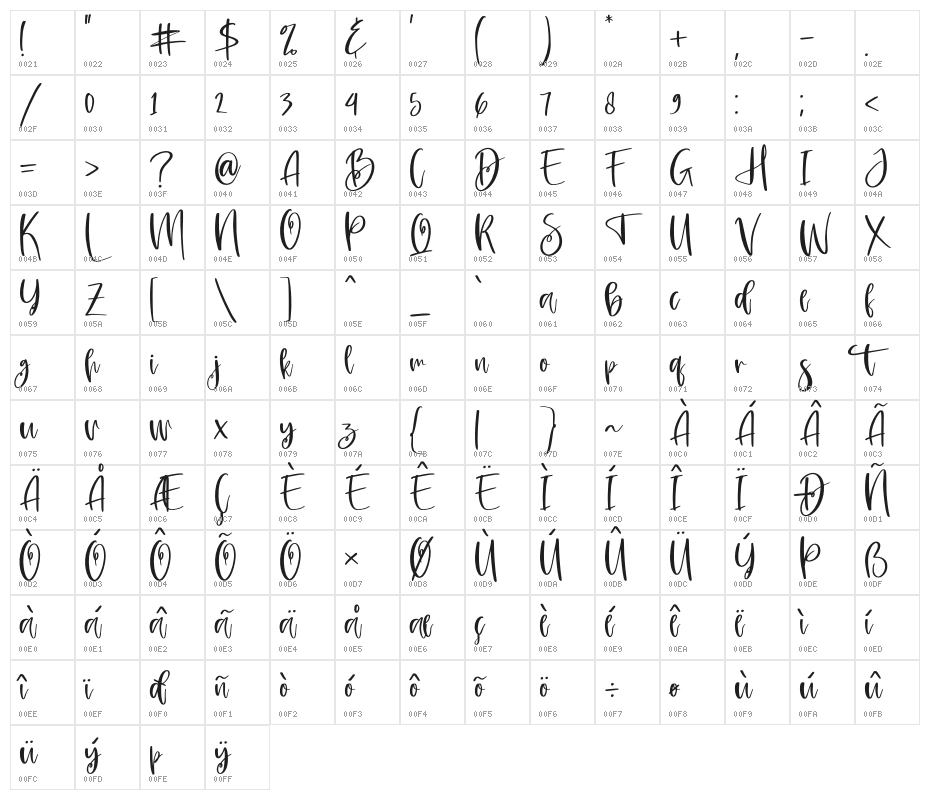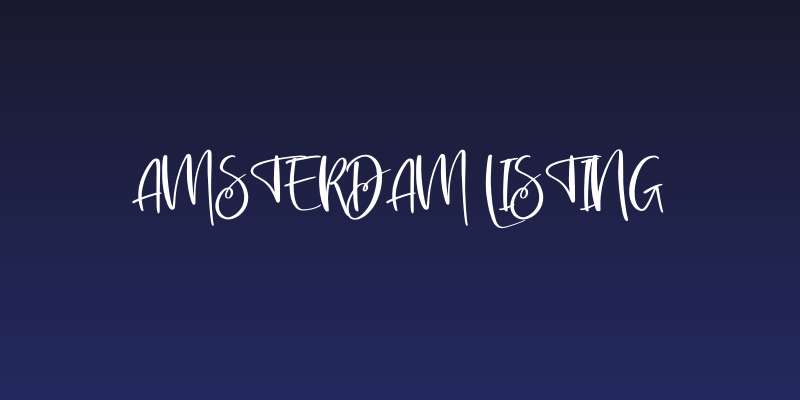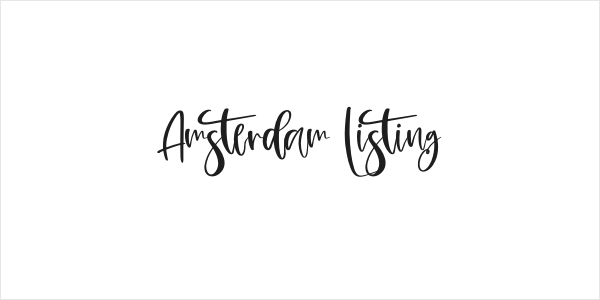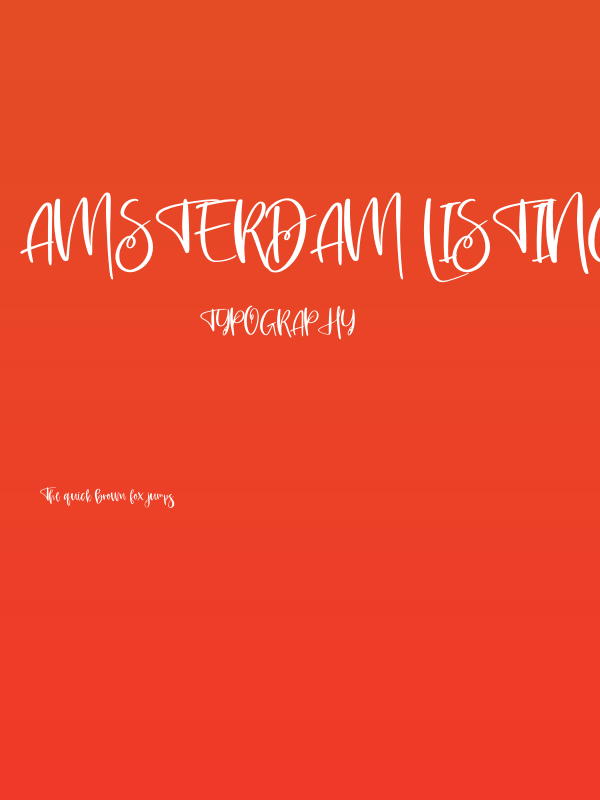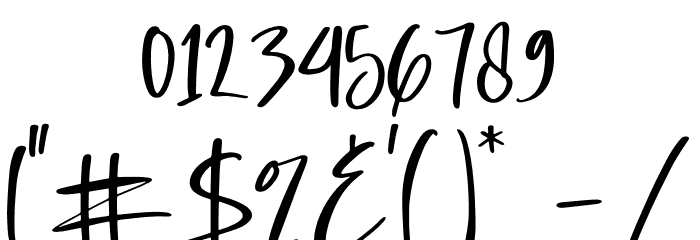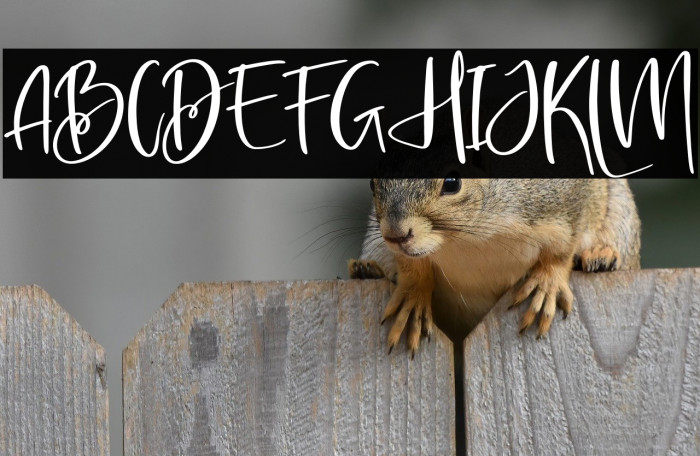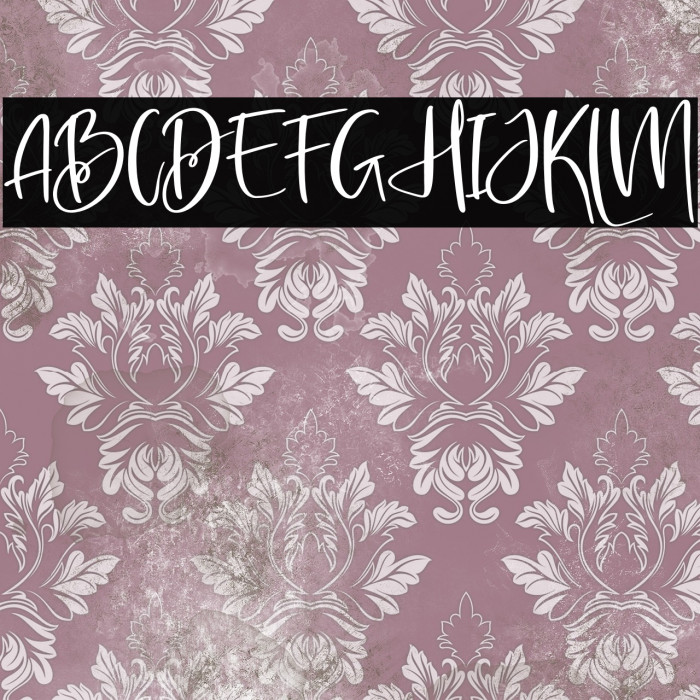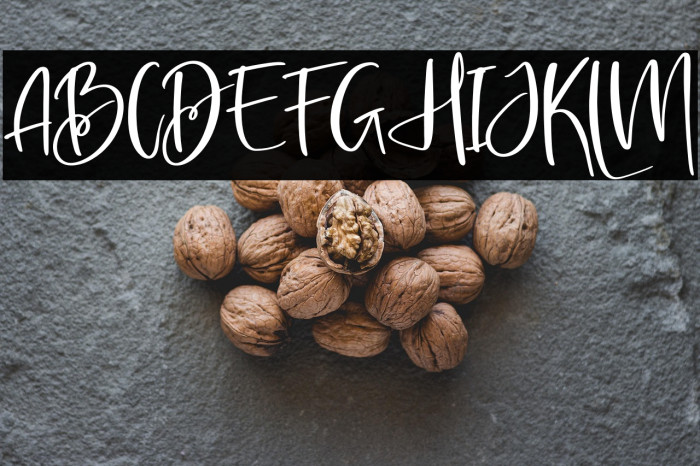
Amsterdam Listing Font
Amsterdam Listing Description
This font features a lively and flowing script style, characterized by its elegant and cursive letterforms. The uppercase letters are bold and expressive, with a playful yet sophisticated flair. The lowercase letters maintain a consistent flow, enhancing the overall fluidity of the design. Numbers and special characters are crafted with the same attention to detail, ensuring a cohesive appearance across all elements. The font's strokes vary in thickness, adding a dynamic contrast that enhances readability while maintaining its decorative appeal. This font is perfect for projects that require a personal touch, such as invitations, greeting cards, and branding materials.